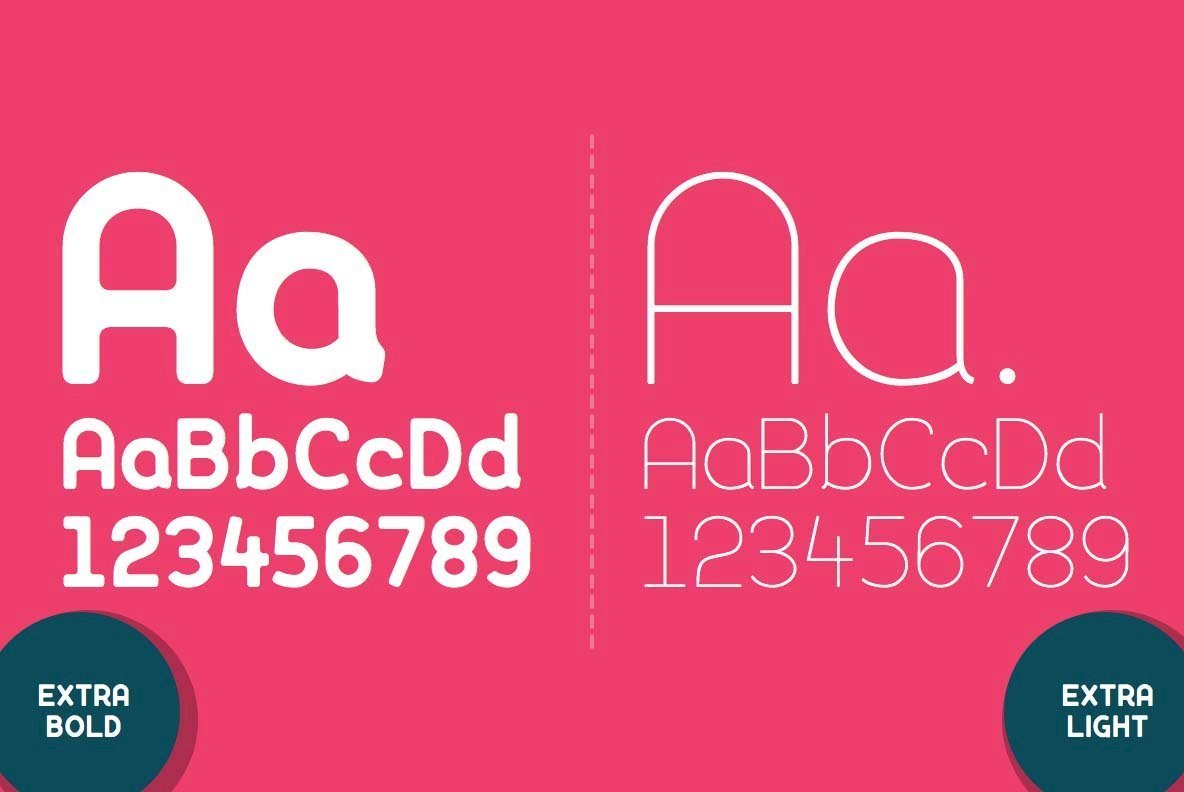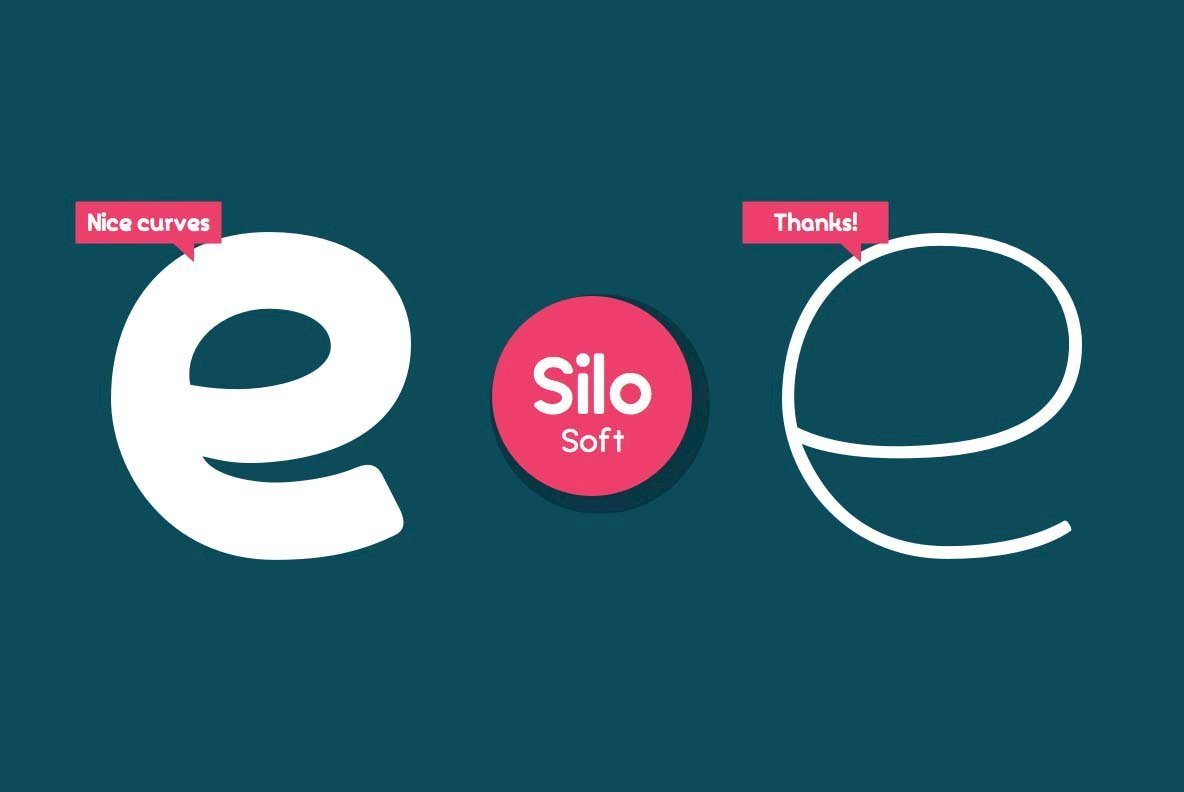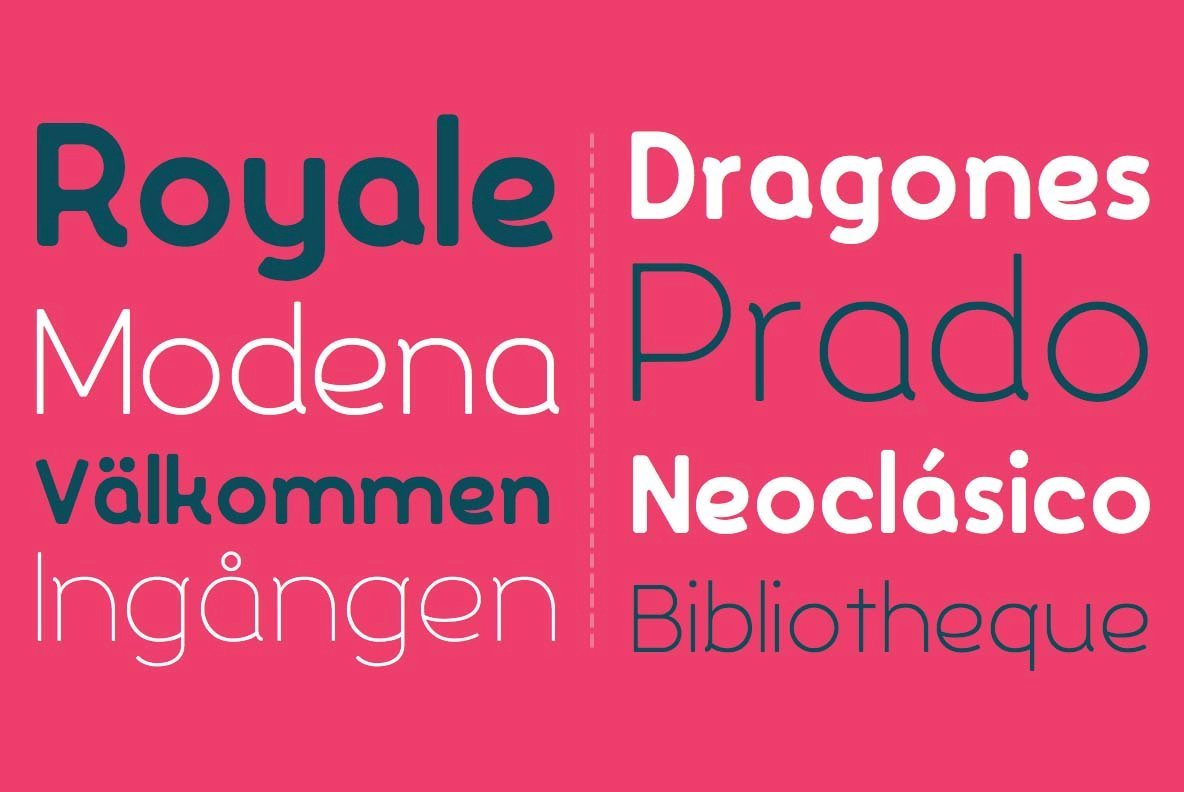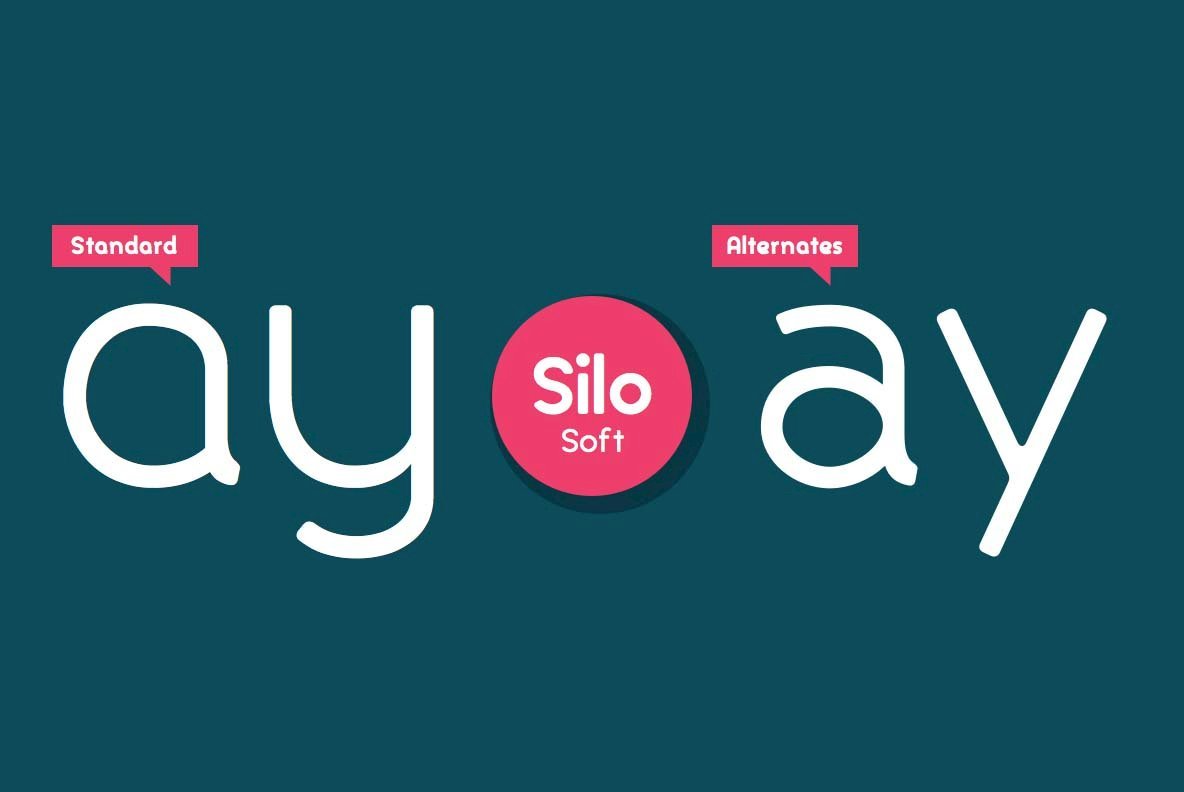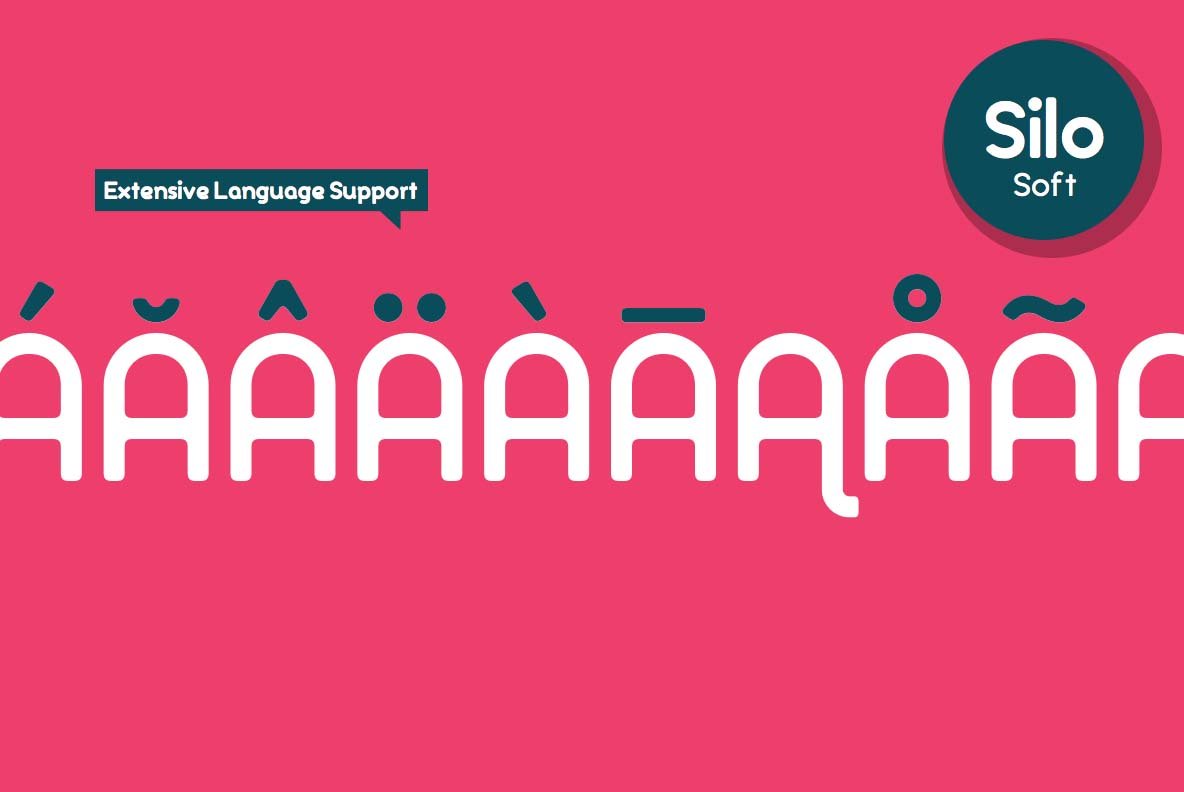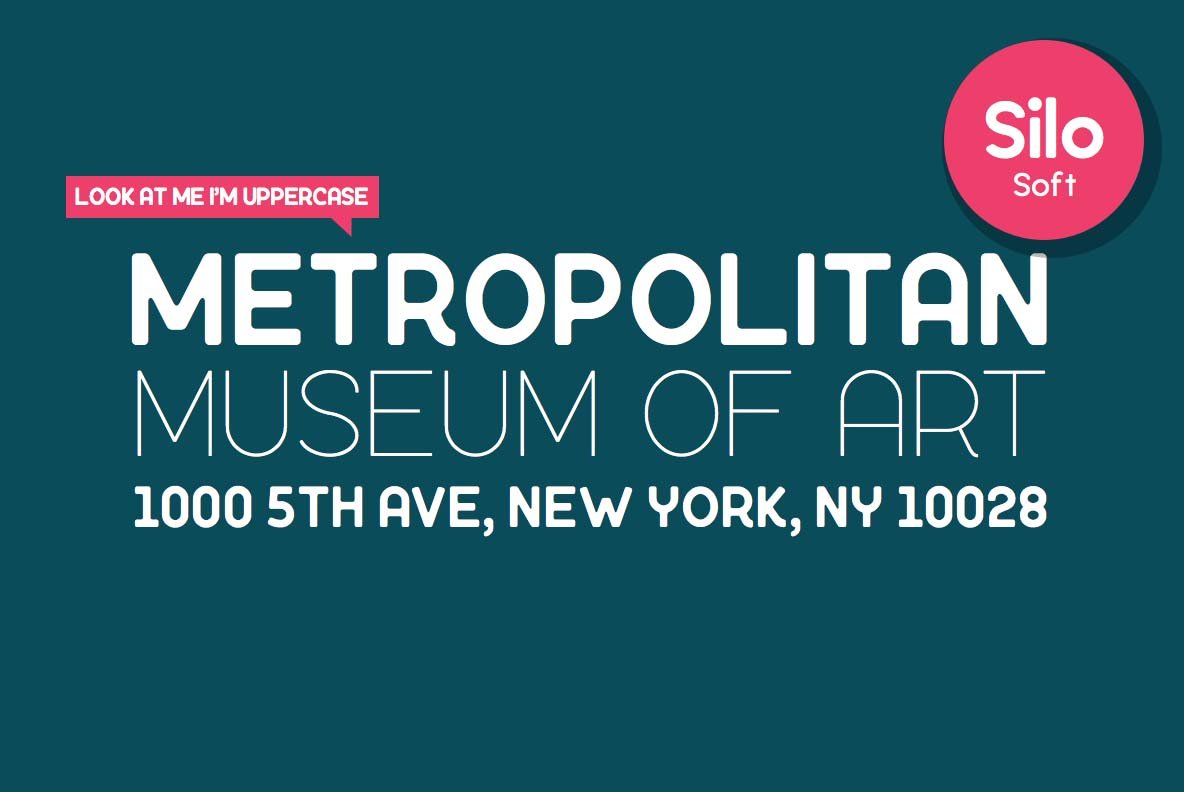
Silo Soft Font
Designed and built in London by TypeUnion, Silo Soft is a fluid sans serif typeface embodying energetic curves and a clean, functional structure.
The Silo Soft Family is made up of 6 weights, which range from a delicate Extra-Light, all the way through to a punchy, loud Extra-bold and each carry a versatility for multiple applications and uses.
Silo Soft features open type alternate characters, and extensive language support to provide a flexible, substantial user experience.